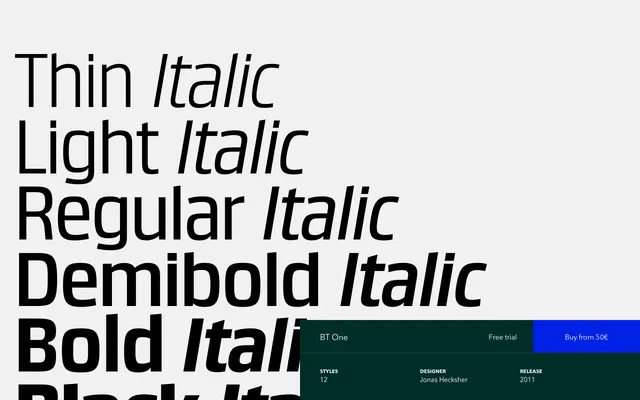
BT One
A display serif from Playtype with a strong editorial character, suited to headline and expressive typesetting.
BT One carries a distinct personality typical of Playtype's editorial sensibility, designed for display use rather than running text. The foundry's own copy frames it around the tension between resistance and seduction, suggesting a typeface built for work where tone and voice matter as much as legibility. Limited detail is provided on weights and language support, pointing to a focused, single-style release.
The editorial quote and name suggest a display-oriented typeface with a distinctive, characterful voice suited to expressive typesetting rather than extended text use.